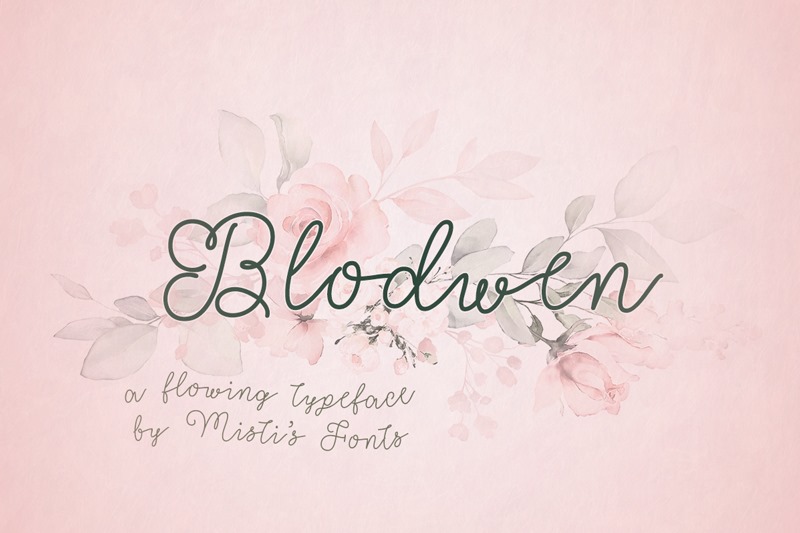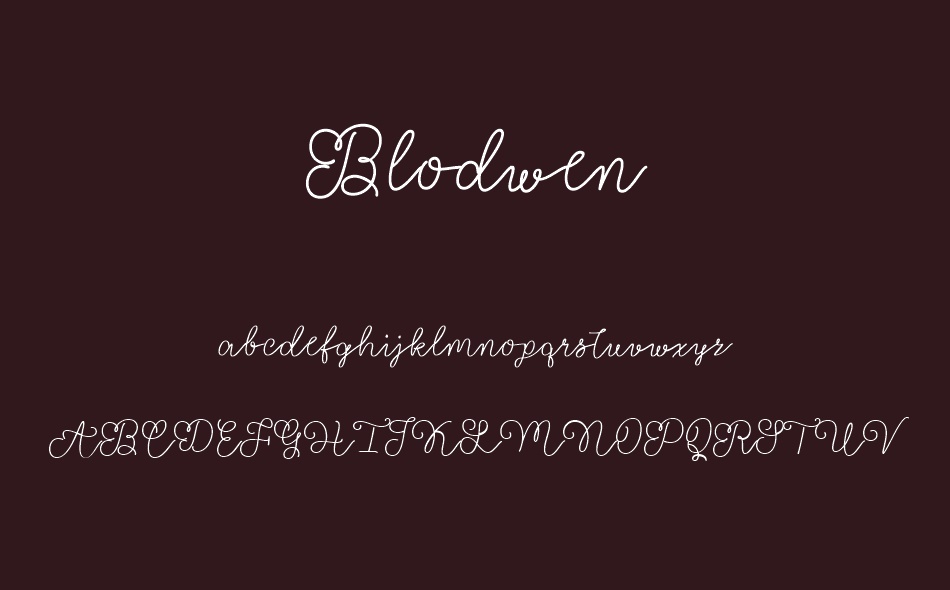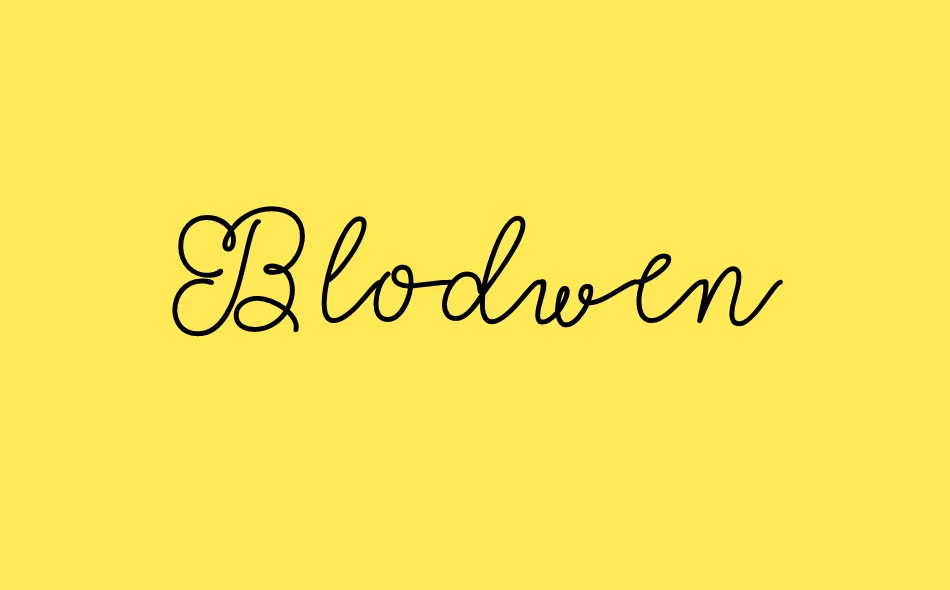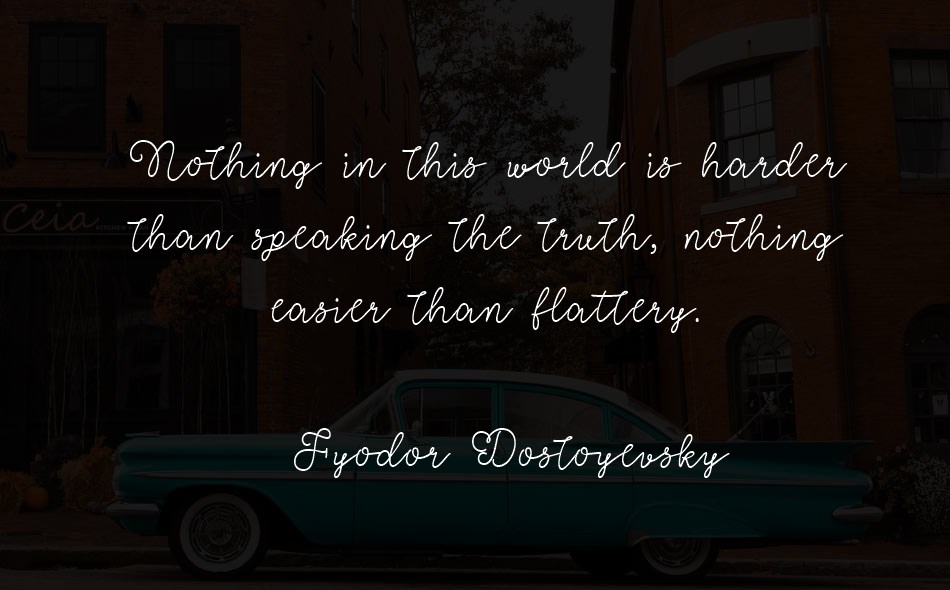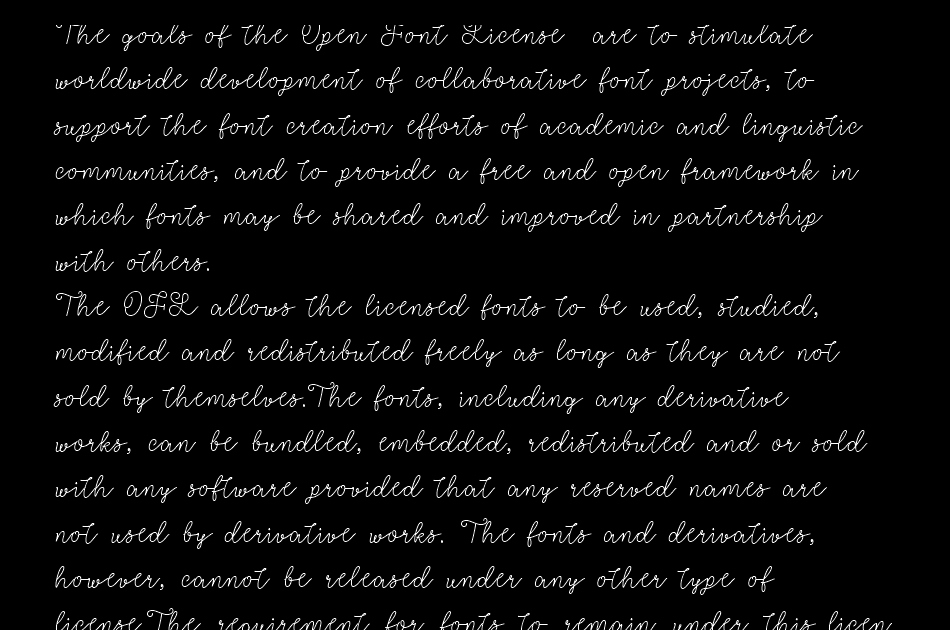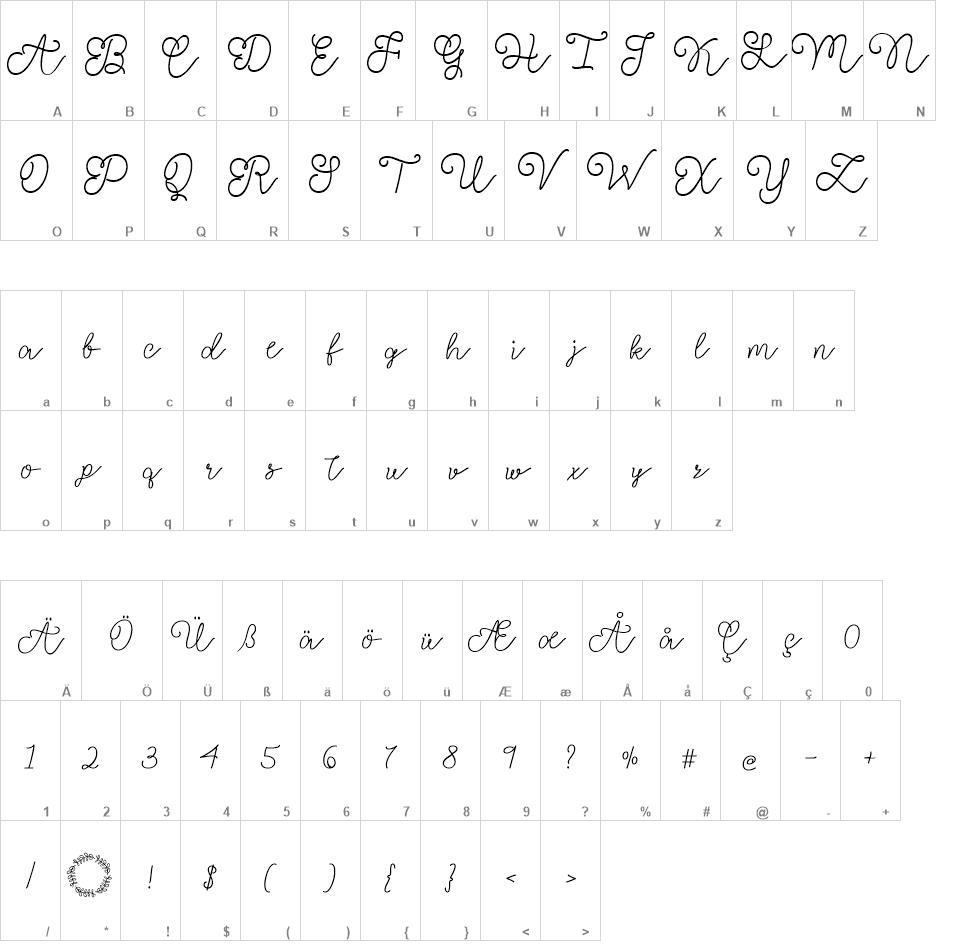
Blodwen font
Blodwen is a beautiful light handwritten font with a unique feel and a stunning impact. It will add a luxury spark to any design project that you wish to create! This font is PUA encoded which means you can access all of the amazing glyphs and ligatures with ease!